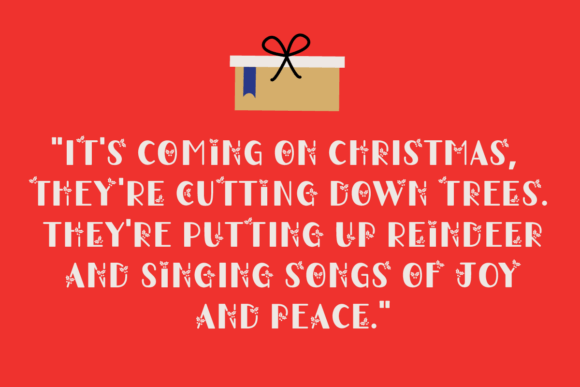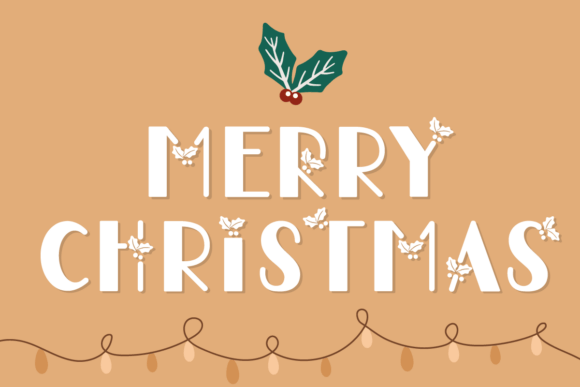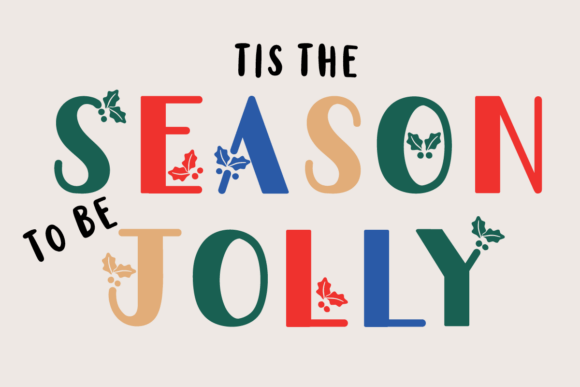
Introduction to Holly Leaves Font
As a designer, there’s nothing quite like the rush of excitement that comes with stumbling upon the perfect font for a project. It’s like finding a hidden treasure that instantly elevates your design to the next level. For me, that moment came when I discovered the beautiful and adorable Holly Leaves Font. Its whimsical leaves and delicate design elements make it the perfect addition to any creative project.
Whether you’re working on a Christmas project, designing a wedding card, or creating a playful quote, the Holly Leaves Font is a valuable resource that can help bring your ideas to life. With its high-quality design and transparent background, you can easily incorporate it into your projects without any hassle. Plus, with its free download option, you can access this fantastic design resource without breaking the bank.
As a designer, having access to a wide range of high-quality fonts like the Holly Leaves Font can be a game-changer for your creative projects. It opens up a world of possibilities and inspires you to think outside the box and come up with innovative ideas. In this article, we’ll take a closer look at the Holly Leaves Font and explore its many uses and benefits.
Key Features of Holly Leaves Font
- Unique holly leaves design elements with transparent background
- Perfect for adding a touch of nature and elegance to any design
Honest Review: Holly Leaves Font
I recently had the chance to work with the Holly Leaves Font for a creative project, and I must say it was a delightful experience. The font is perfect for those who want to add a touch of elegance and sophistication to their designs.
- ✨ High-quality design: The font is crisp and clean, making it ideal for printing or digital use.
- ✨ Transparent background: This feature allows for seamless integration with other design elements, giving you more creative freedom.
- ⚠️ Limited character set: The font only includes uppercase and lowercase letters, which may not be sufficient for all design needs.
- ⚠️ No bold or italic variants: If you need bold or italic text, you’ll have to use a different font.
Overall, I’m impressed with the Holly Leaves Font and would recommend it to designers looking for a high-quality, free design resource for their creative projects.
Tips for Getting the Most Out of Holly Leaves Font
Use Holly Leaves Font in combination with other design elements to create a cohesive look.
Experiment with different font sizes and colors to achieve the desired effect.
Consider using the font in conjunction with a transparent background for a seamless design.
Common Use Cases for Holly Leaves Font
Holly Leaves Font is perfect for:
Wedding invitations and stationery
Christmas and holiday-themed designs
Botanical and nature-inspired projects